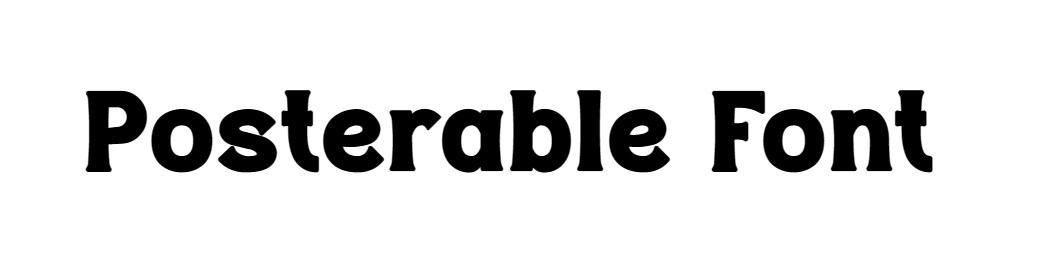
Posterable
Posterable is a fancy font created by TOKOPRESS TEAM and released through TOKOPRESS. It's a decorative display font with plenty of personality, made to grab attention. It's a free download, and you can try it with your own text in the preview above first.
With complete upper and lowercase letters and all ten digits, Posterable is ready for real wording, not just a single headline. Everyday marks like &, !, ? and @ are there too. Thanks to its accented letters, it also works for Spanish, French, Portuguese and Italian, not just English.
Think of Posterable for posters, logos and eye-catching headlines. Its lowercase letters are tall compared to the capitals, which keeps it readable at smaller sizes. Use it for one standout word or headline and let simpler fonts handle the rest.